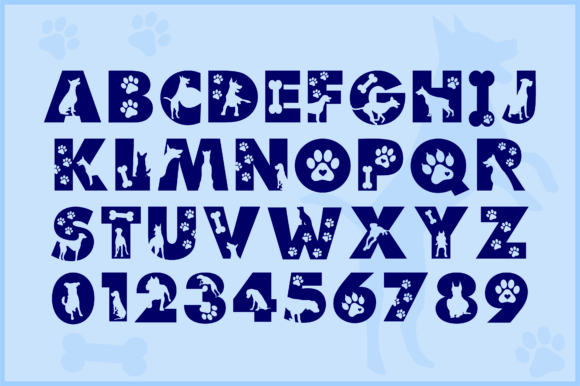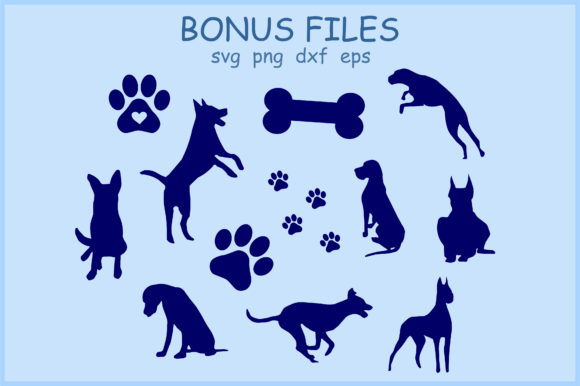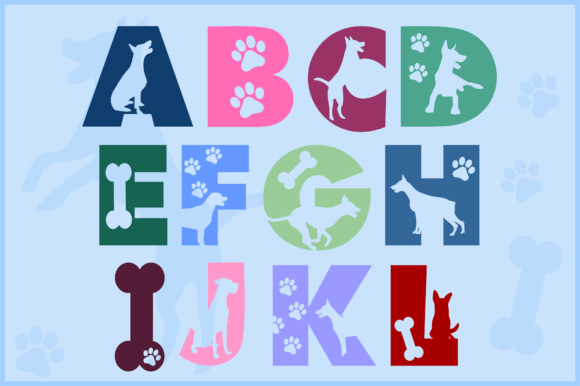
Introducing Dog Life Font: A Playful Typeface for Pet Lovers
Are you a dog lover looking for a unique and fun font to add a personal touch to your designs? Look no further than Dog Life Font, a warm and cheerful decorative typeface created with love for our loyal four-legged friends. This adorable font is perfect for pet-related designs, from pet shop logos to cute quotes on apparel, mugs, and home decor.
A Font Filled with Adorable Dog Silhouettes
What makes Dog Life Font truly special is its design. Each letter is filled with adorable dog silhouettes, paw prints, and bones, capturing the spirit of joy and devotion that comes with sharing our lives with our canine companions. The font’s playful and whimsical design is sure to bring a smile to anyone’s face, making it perfect for designs that require a touch of warmth and personality.
Perfect for Pet-Related Designs
Dog Life Font is ideal for designers who specialize in pet-related projects, such as pet shop logos, pet grooming services, or animal shelters. The font’s unique design ensures that your creations will stand out from the crowd and capture the hearts of pet lovers everywhere. Whether you’re designing a logo, brochure, or social media graphics, Dog Life Font is the perfect choice.
Beyond Typography: Additional Graphic Elements
As a special bonus, the Dog Life Font pack includes additional graphic elements featuring dog silhouettes, paw prints, and bones in SVG, PNG, DXF, and EPS formats. These graphics are perfect for crafts, stickers, and creative projects, allowing you to add an extra touch of personality to your designs. Imagine creating custom stickers, iron-on transfers, or even personalized pet tags with these adorable graphics.
Use Dog Life Font for a Variety of Projects
The versatility of Dog Life Font knows no bounds. Here are just a few ideas to get you started:
- Pet shop logos and branding materials
- Cute quotes and sayings on apparel, mugs, and home decor
- Custom pet tags and collars
- Pet grooming and pet sitting services
- Animal shelter and rescue organization materials
- DIY crafts and stickers
Why Choose Dog Life Font?
So why choose Dog Life Font over other fonts? Here are just a few reasons:
- Unique and playful design that’s sure to capture attention
- Perfect for pet-related designs and projects
- Includes additional graphic elements for extra creativity
- Easily customizable for your specific design needs
Get Creative with Dog Life Font
| Font Name | Dog Life Font |
| Author | wtl.typography |
In conclusion, Dog Life Font is a one-of-a-kind decorative typeface that’s perfect for pet lovers and designers alike. With its adorable dog silhouettes, paw prints, and bones, this font is sure to capture the hearts of anyone who sees it. Whether you’re designing a logo, creating custom crafts, or simply looking for a fun and playful font, Dog Life Font is the perfect choice. So go ahead, get creative, and show the world your love for our loyal four-legged friends!